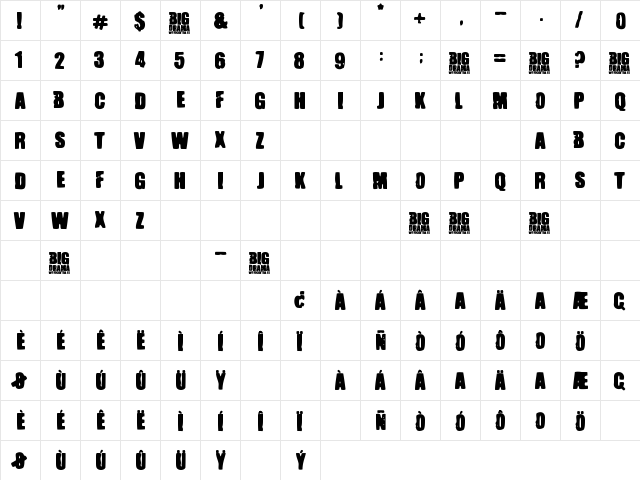
Big Drama Regular
| Designer | Woodcutter Manero |
Design Context for Big Drama Typeface
Big Drama is a composed and adaptable typeface that performs quietly and consistently across a wide range of design contexts.